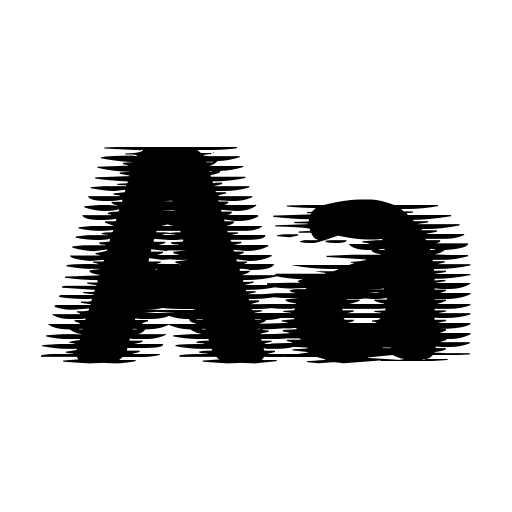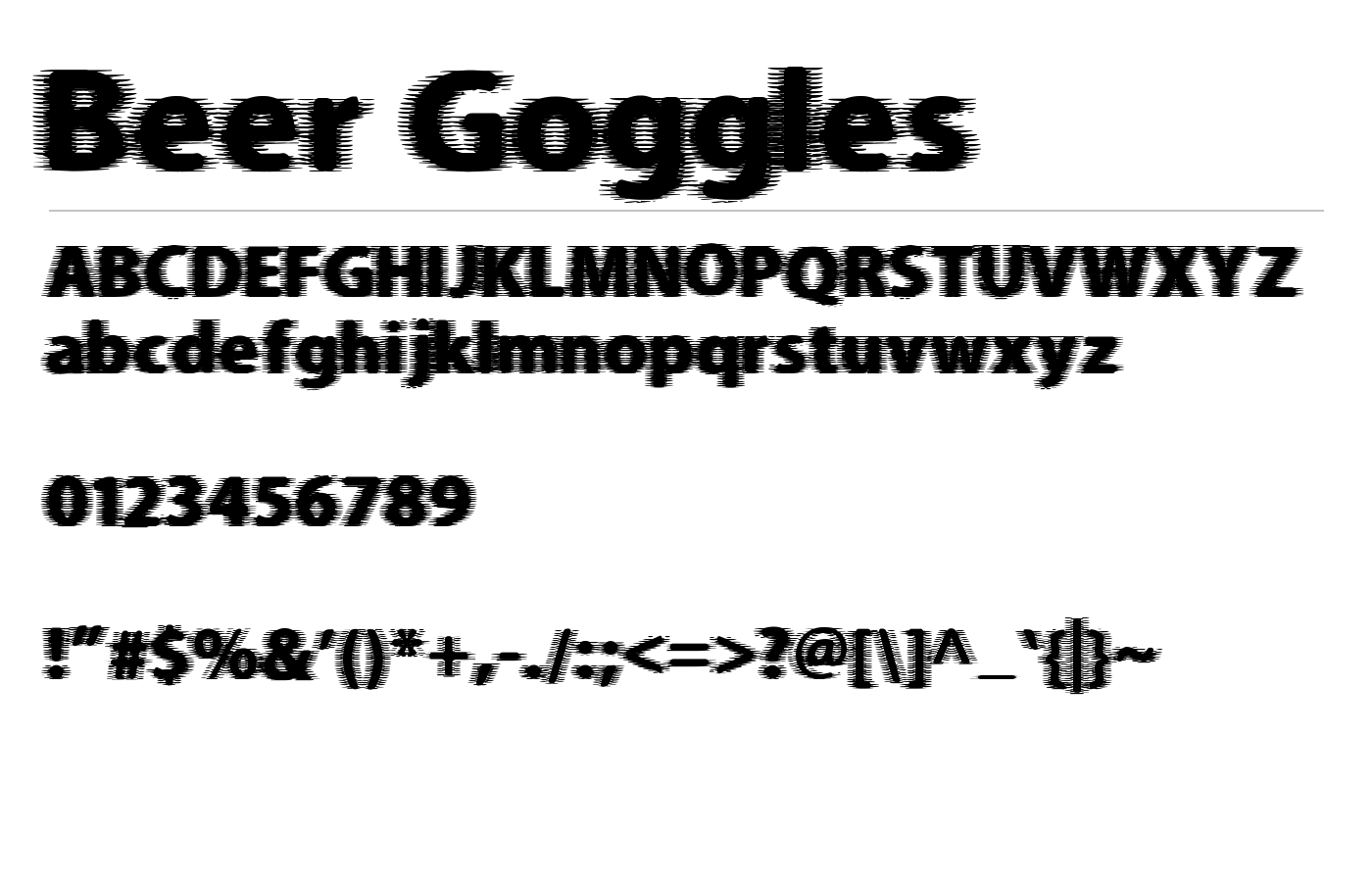
Beer Goggles is a bold, sans serif font with a unique, blurred effect that mimics the visual distortion of looking through frosted or moving lenses. Its chunky letterforms convey a playful and dynamic vibe, making it perfect for casual, fun branding or attention-grabbing headlines where a sense of humor and energy is desired. This font works well in designs for parties, bars, or any creative project aiming for a laid-back, quirky feel.
Beer Goggles Font
About Beer Goggles Font